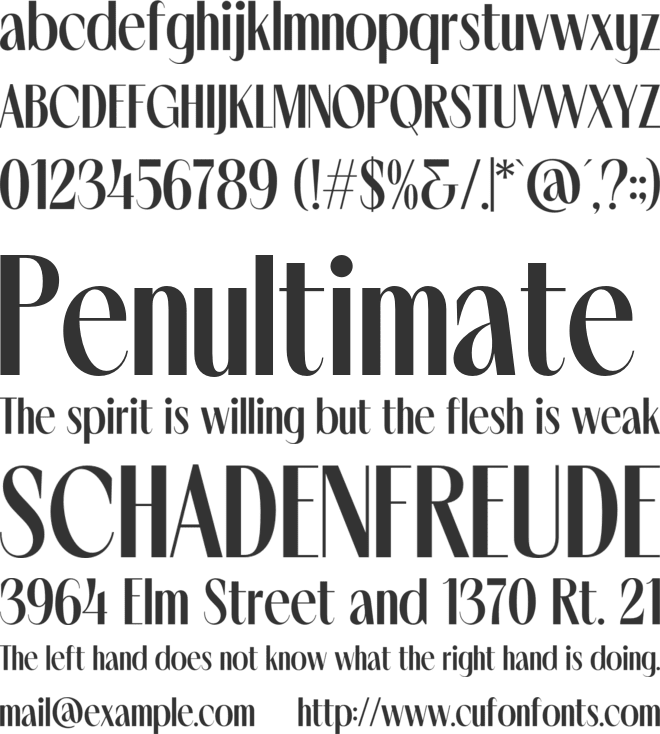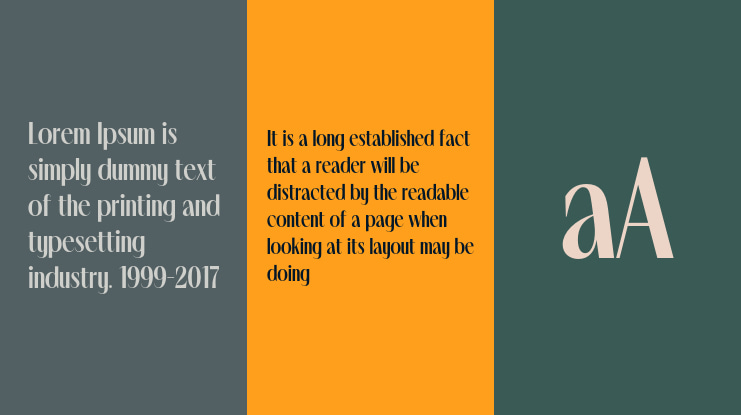
Noserta is a modern high-contrast sans-serif typeface designed to
deliver elegance, clarity, and a strong contemporary presence.
Featuring a refined balance of bold vertical strokes and delicate
thin lines, Noserta offers a luxurious yet confident visual character.
Its unique ligature system creates seamless, beautiful connections
between letter pairs, adding a subtle decorative rhythm while
maintaining readability. Ideal for branding, logos, editorial layouts,
fashion identities, premium packaging, headlines, and modern
digital interfaces.